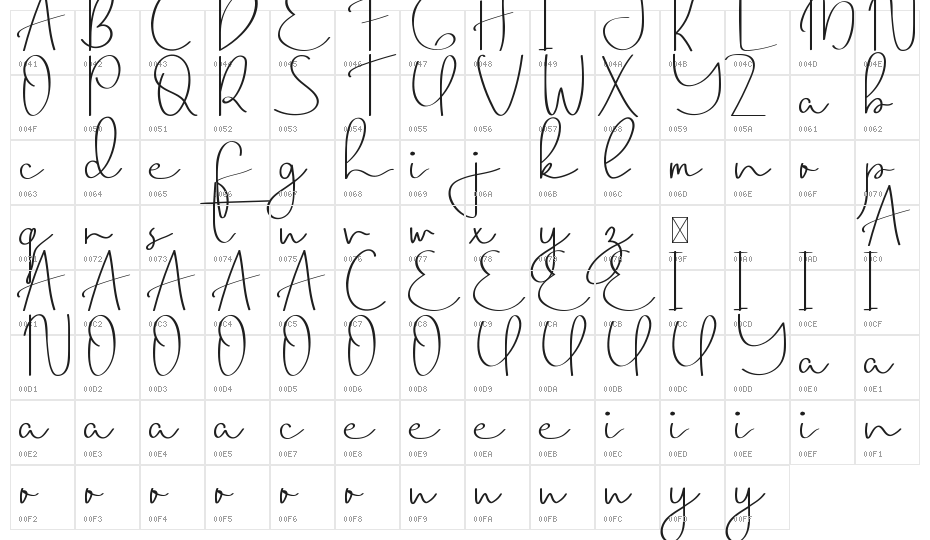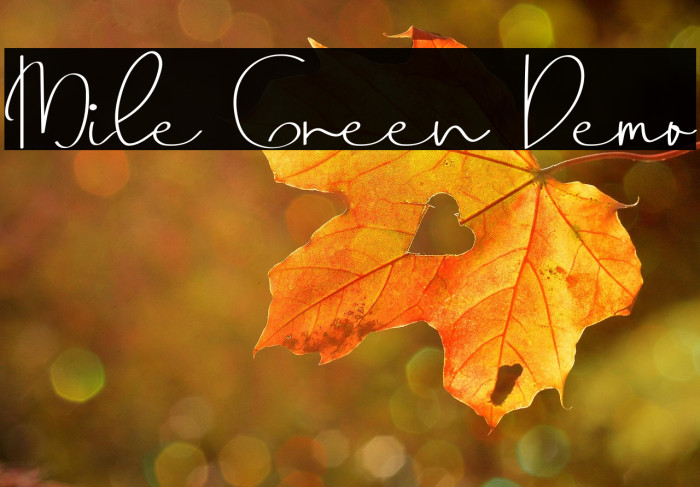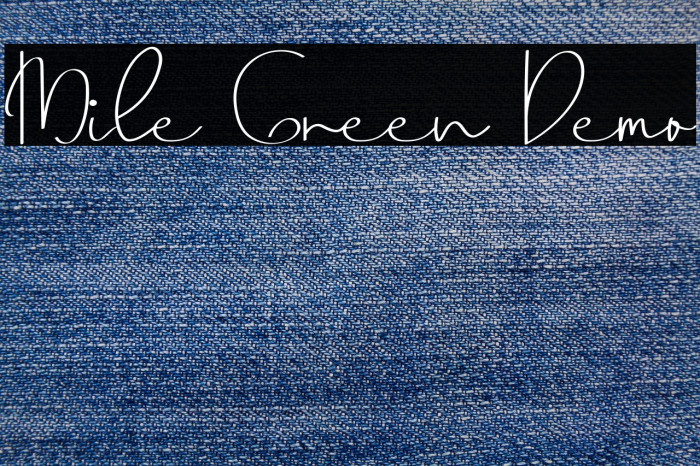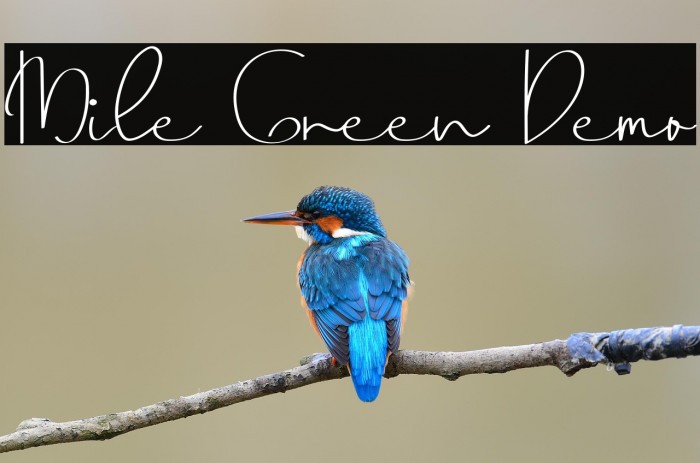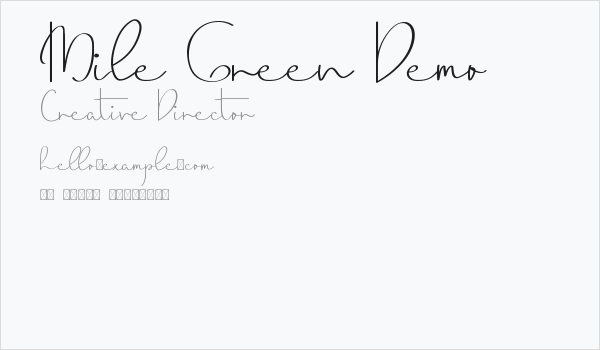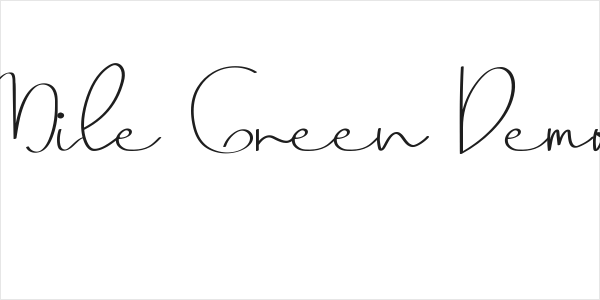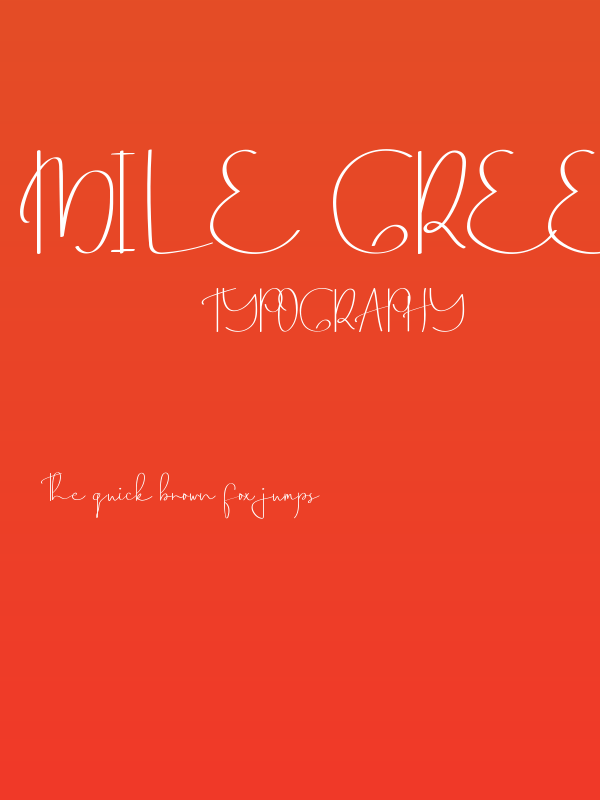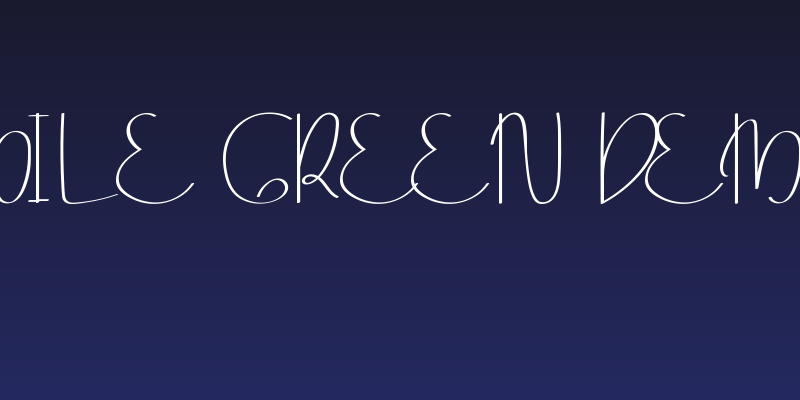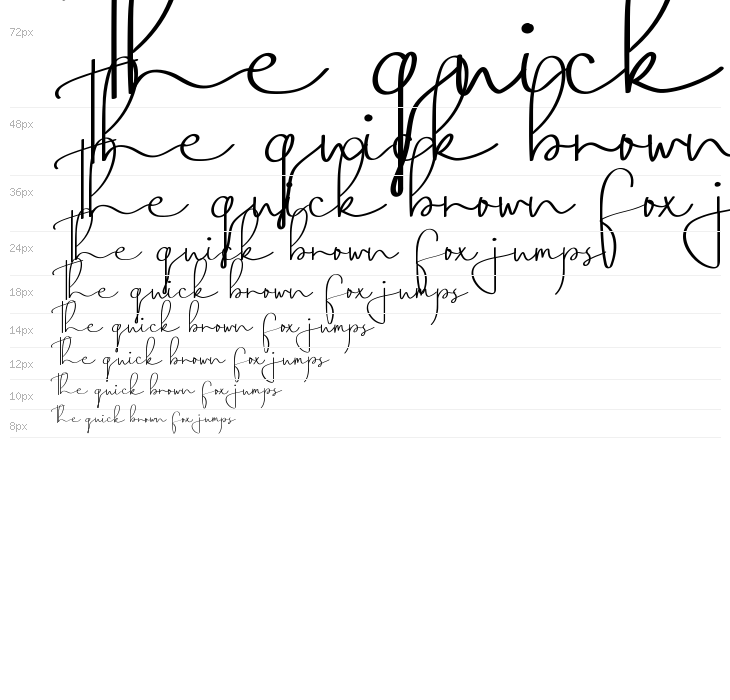
Mile Green Demo Font
Mile Green Demo Description
This font features a whimsical and flowing script style, characterized by its elegant and fluid letterforms. The uppercase letters are tall and slender, with a playful, looping design that adds a touch of sophistication. The lowercase letters maintain a consistent flow, with some characters extending below the baseline, enhancing its graceful appearance. The overall design is airy and light, with a hand-drawn quality that gives it a personal and artistic feel. The font's unique style makes it suitable for creative projects where a touch of elegance and individuality is desired.